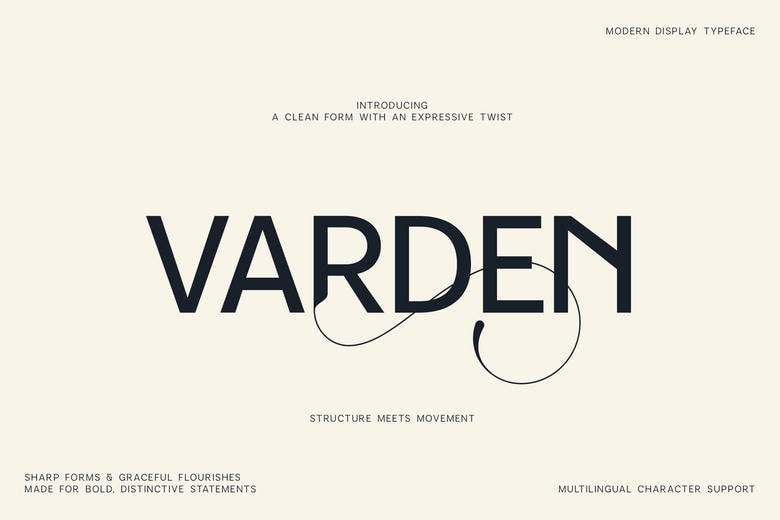
Varden Font
Varden is a modern sans-serif font with bold shapes and clean lines. Graceful details give it a sense of movement, making contemporary lettering feel lively. The design is simple and easy to read, while some letters feature creative touches that help them stand out.
Varden Modern Display Sans Serif Font